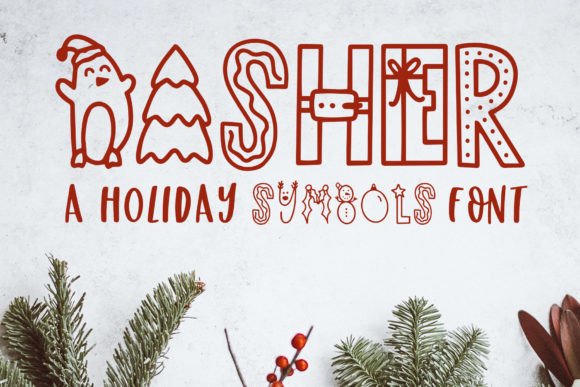
Behold, the Dasher Font - a whimsical and captivating creation by jordynalisondesigns, a font that embodies the magic and merriments of the holiday season. Step into a realm of enchanting characters, delicate swirls, and playful symbols ready to transform your creative projects into captivating masterpieces.
This decorative font is not just a collection of letters and numbers; it's an art form that sparks imagination and adds a touch of wonder to your designs. Say goodbye to mundane fonts and embrace the delightful charm of the Dasher Font, meticulously crafted to bring life to your words.
With 26 charming characters, 0-9 numerical elegance, and a selection of symbols that dance with festive cheer, the Dasher Font is the perfect companion for your holiday creations. Picture gift tags that shimmer with joy, invitations to holiday parties that exude warmth and cheer, and t-shirt designs that radiate the festive spirit.
Unleash the magic of the Dasher Font and let your creativity soar. It's the perfect choice for adding that special touch to your holiday projects, capturing the essence of the season, and spreading joy with every design. Whether you're a seasoned designer or just starting, the Dasher Font will elevate your creations with its captivating allure.
So why settle for ordinary when you can have extraordinary? Embrace the Dasher Font today and let the magic of the season flow through your designs.